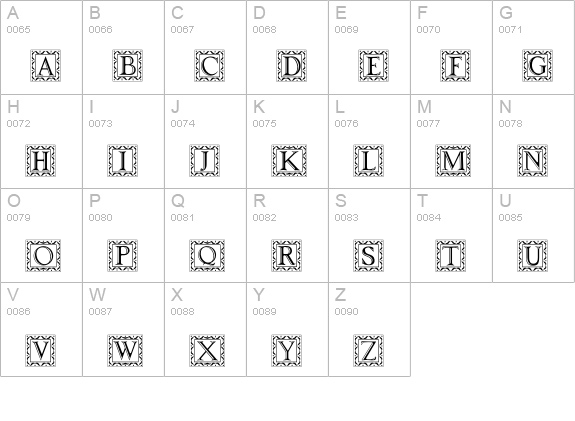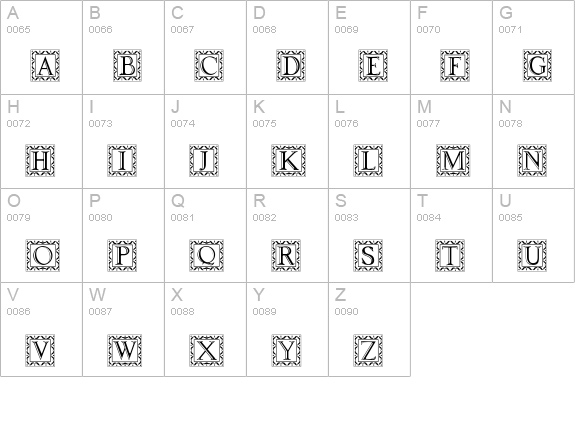
DropCapsInline Font Details
DropCapsInline is a stunning and elegant font that exudes sophistication and charm. With its unique drop caps design, this font is perfect for adding a touch of class to your projects. The intricate details and stylish flourishes make DropCapsInline a standout choice for any design endeavor. The best part? DropCapsInline is completely free to download at FontsMarket.com! This means you can elevate your design projects without breaking the bank. Whether you're working on invitations, posters, or branding materials, DropCapsInline is sure to make a lasting impression. Download it today and unlock a world of creative possibilities!